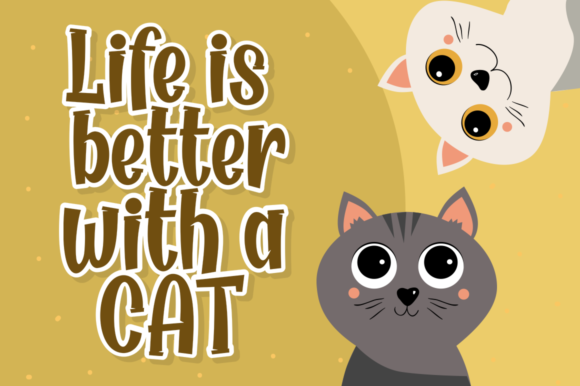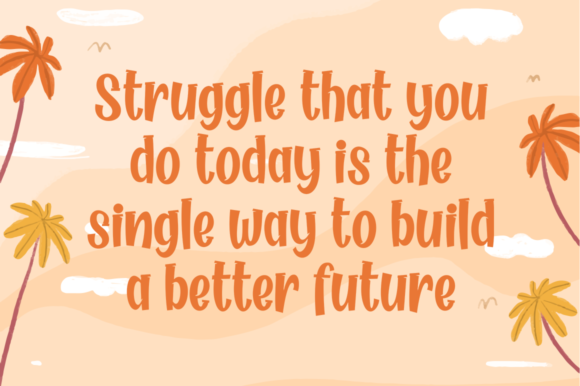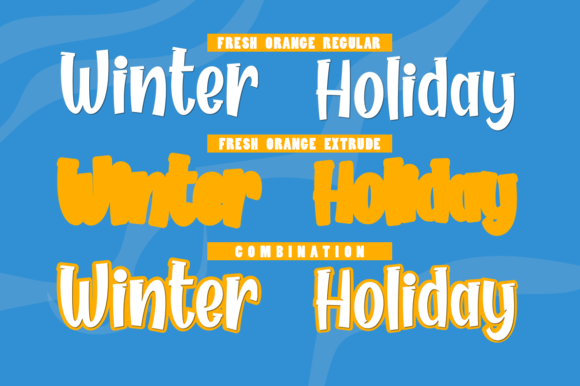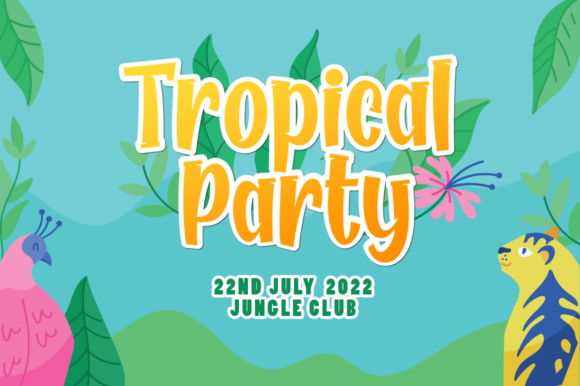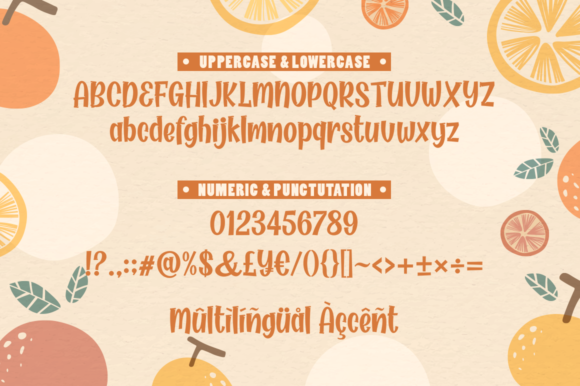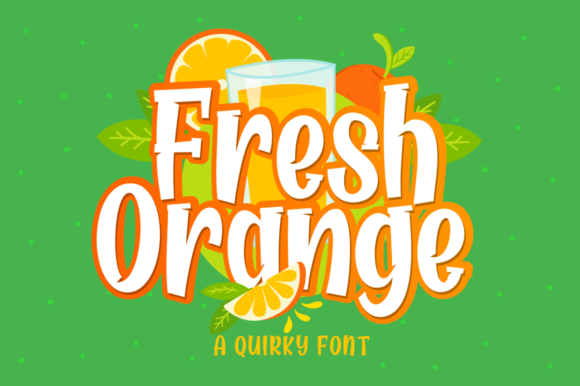
The Ultimate Design Game-Changer: Fresh Orange Font
I’ll never forget the time I was working on a branding project for a trendy new cafe, and I just couldn’t find the perfect font to capture their fun and vibrant personality. The client was specific – they wanted something bold, yet down-to-earth, and I was determined to deliver. That’s when I stumbled upon Fresh Orange, a bold display font that would change the game for me and countless other designers. In this article, I’ll share my love for Fresh Orange, its features, and how to make the most of it in your designs.
An Honest Review of Fresh Orange
So, what makes Fresh Orange so special? Let’s dive into the good stuff and a few quirks I’ve discovered.
- ✨ Versatility: Fresh Orange is incredibly versatile and works beautifully in various contexts, from busy backgrounds to standalone headlines.
- ✅ Readability: Despite being a bold font, Fresh Orange remains surprisingly readable, even at smaller sizes.
- 💃 Casual Charm: The font’s handcrafted feel gives it a wonderfully down-to-earth personality that resonates with audiences.
- 🤔 Limited use in body text: While Fresh Orange shines as a display font, it’s not the best choice for lengthy body text due to its bold nature.
- ⚠️ Kerning issues: As with any font, some users have reported minor kerning issues; however, these can often be adjusted manually.
One of the standout features of Fresh Orange is its support for OpenType features. This means you can access a range of glyphs and stylistic alternates to add more creativity to your designs. For example:
- Stylistic Sets: Some fonts offer alternative stylistic sets that can change the look of your text dramatically.
- Ligatures: These can help improve the flow of your text by combining certain letter pairs.
- Swashes: For those extra decorative touches, swashes can add a beautiful flourish to your text.
The Story Behind Fresh Orange
Fresh Orange was designed with the intention of creating a bold yet approachable font. The designer aimed to craft a font that felt both modern and relatable, perfect for designers looking to make a statement. While the exact backstory might be fictional, the impact of Fresh Orange on the design community is very real.
Q: Is Fresh Orange suitable for body text?
A: While Fresh Orange is primarily designed as a display font, it can be used for short paragraphs of body text. However, for longer texts, a more readable font might be preferable.
Q: Does Fresh Orange support OpenType features?
A: Yes, Fresh Orange supports OpenType features, including ligatures, stylistic alternates, and more, allowing for a high degree of customization.
Fresh Orange is more than just a font – it’s a design tool that can elevate your projects with its bold yet charming personality. Whether you’re a seasoned designer or a creative hobbyist, Fresh Orange is sure to become a favorite in your toolkit.